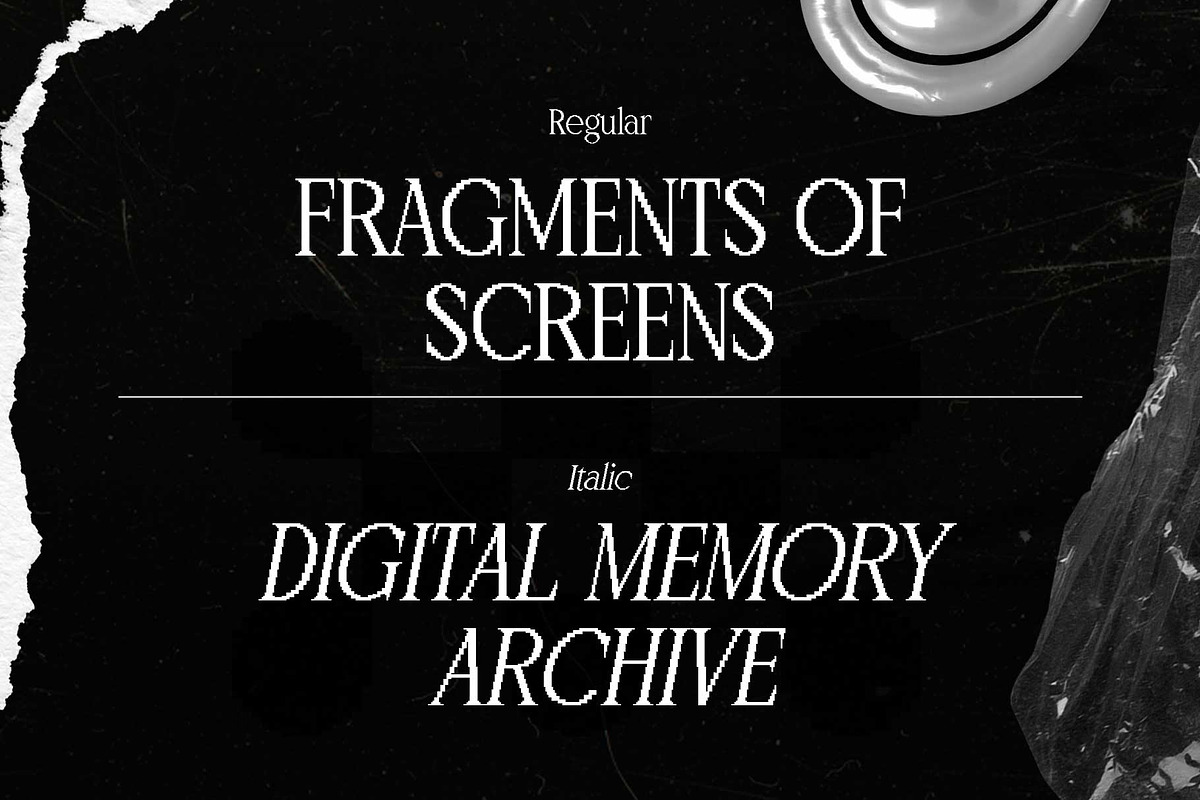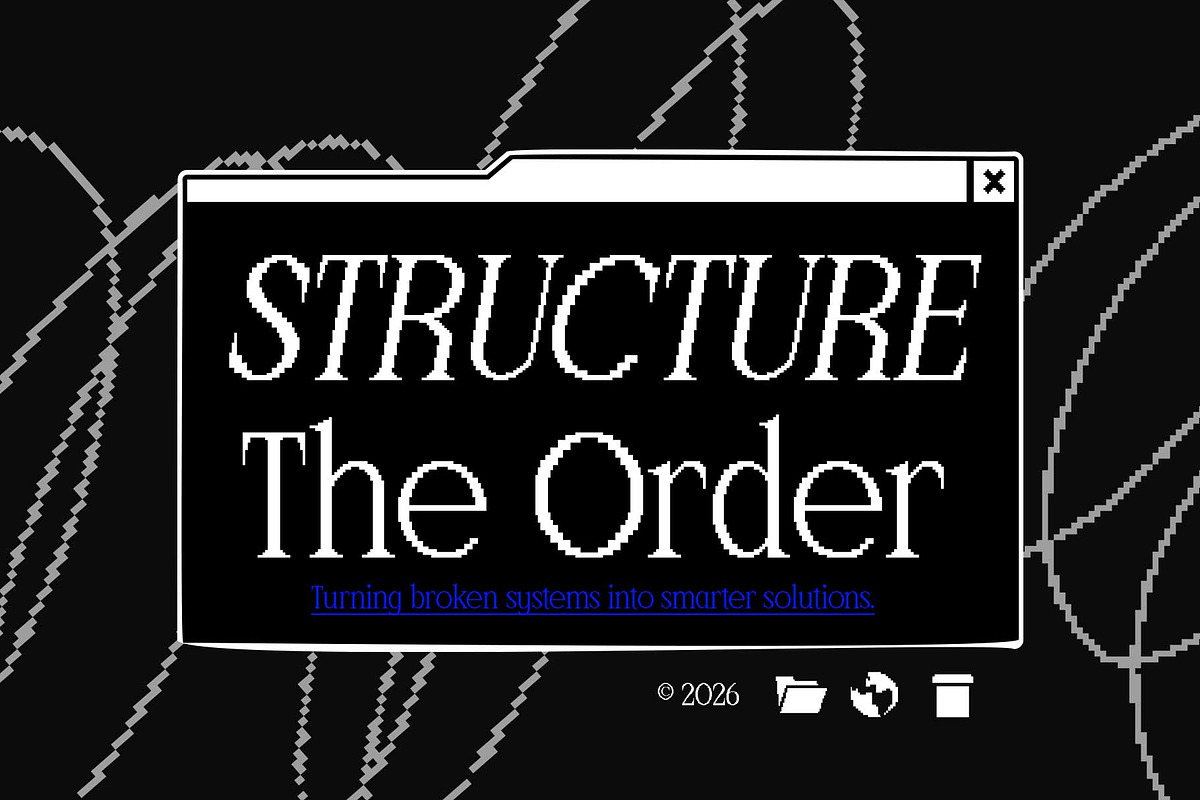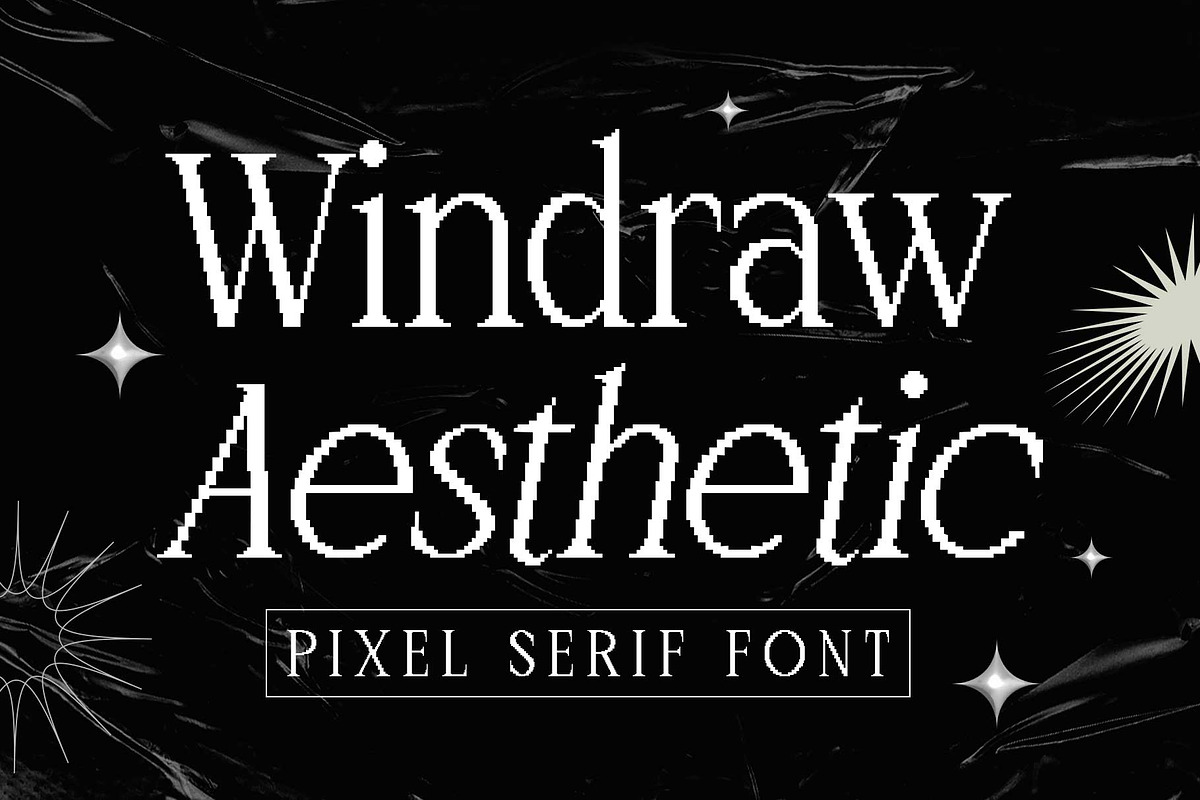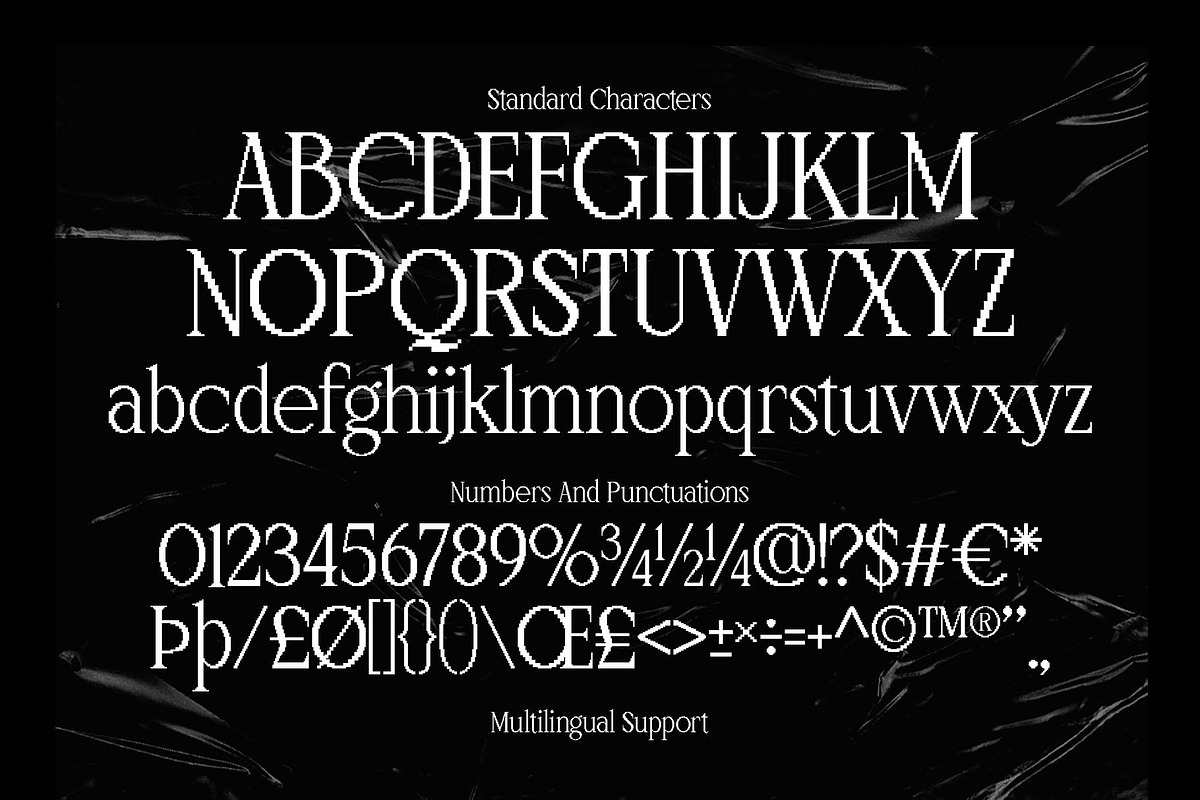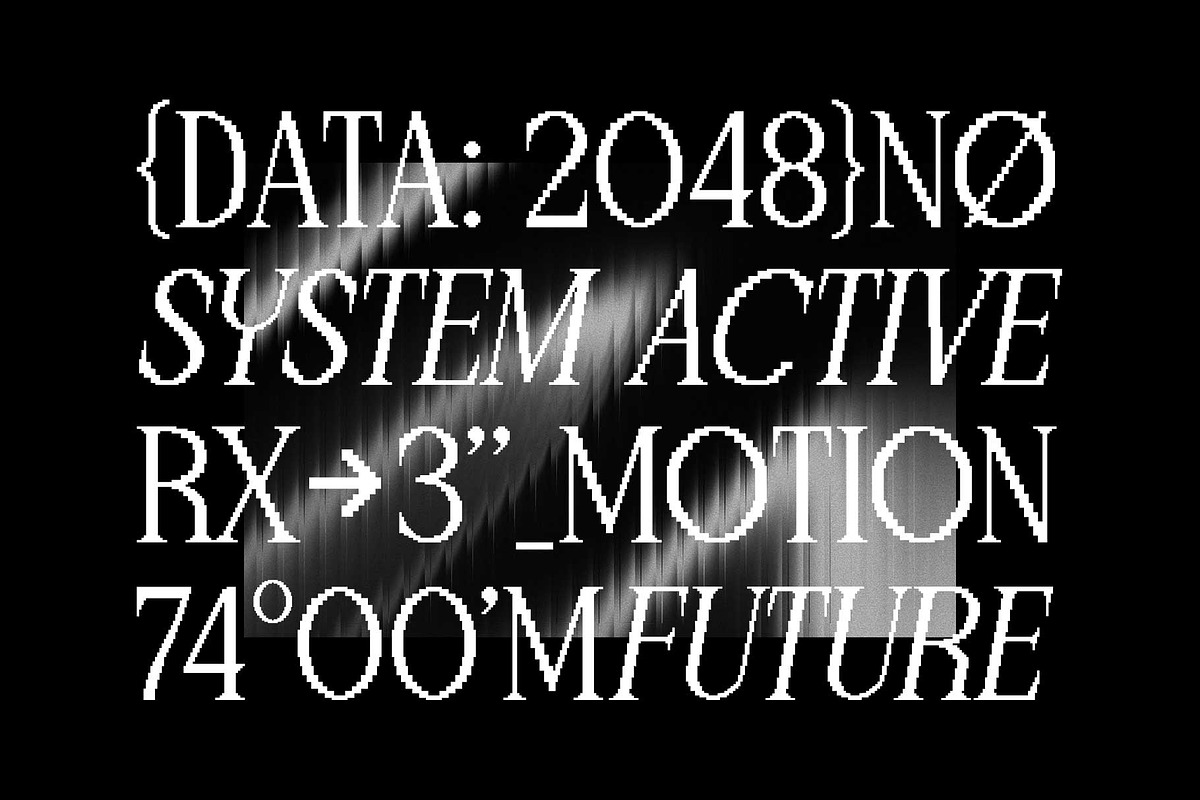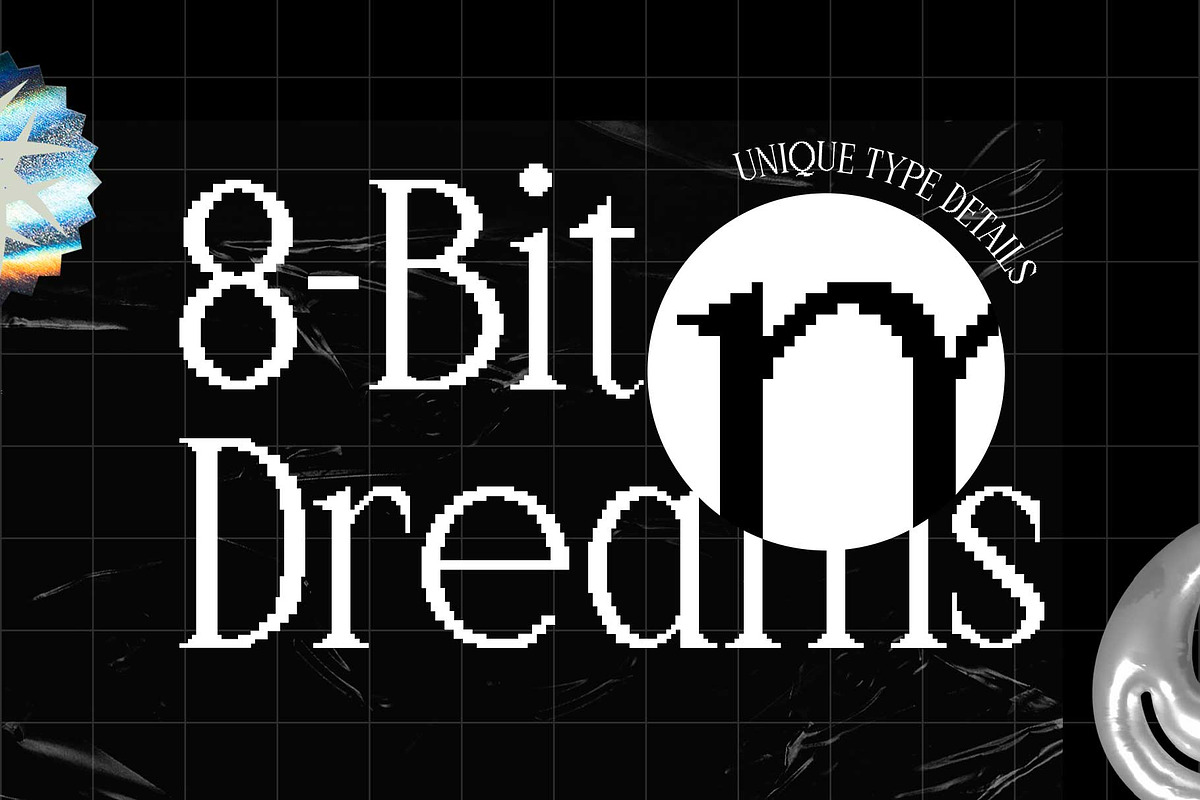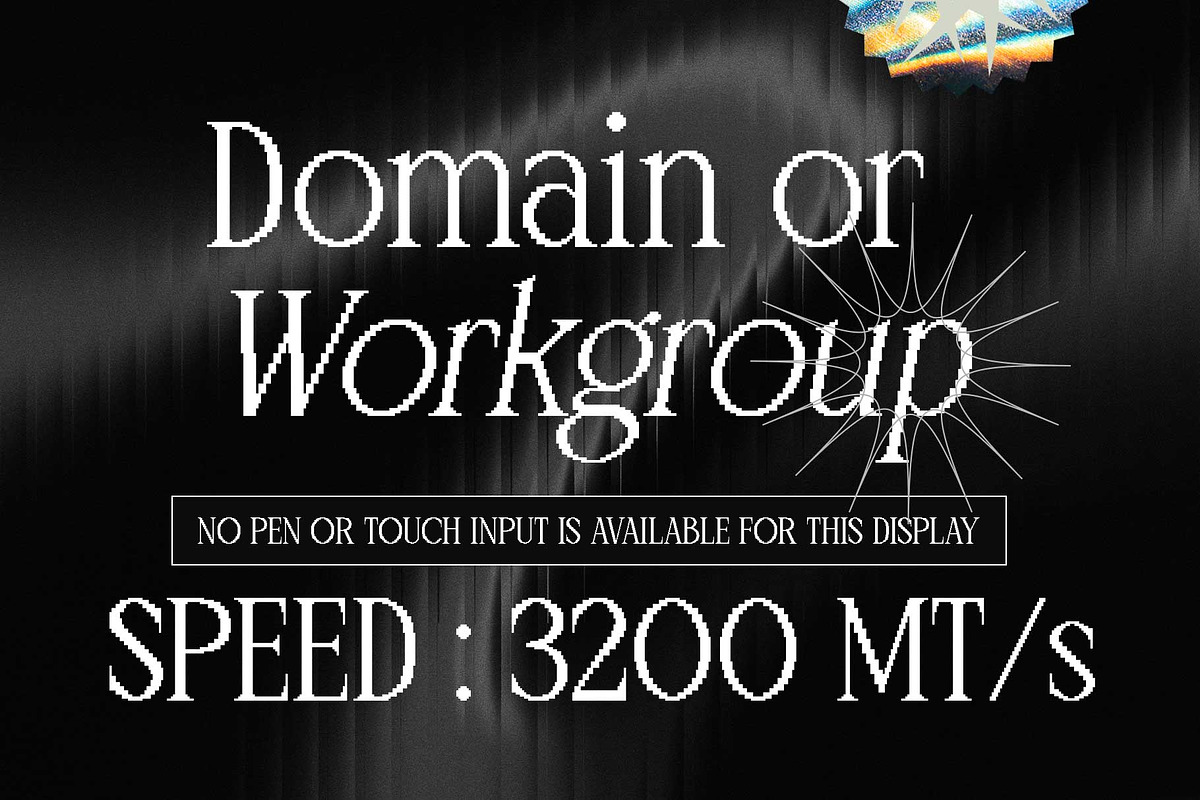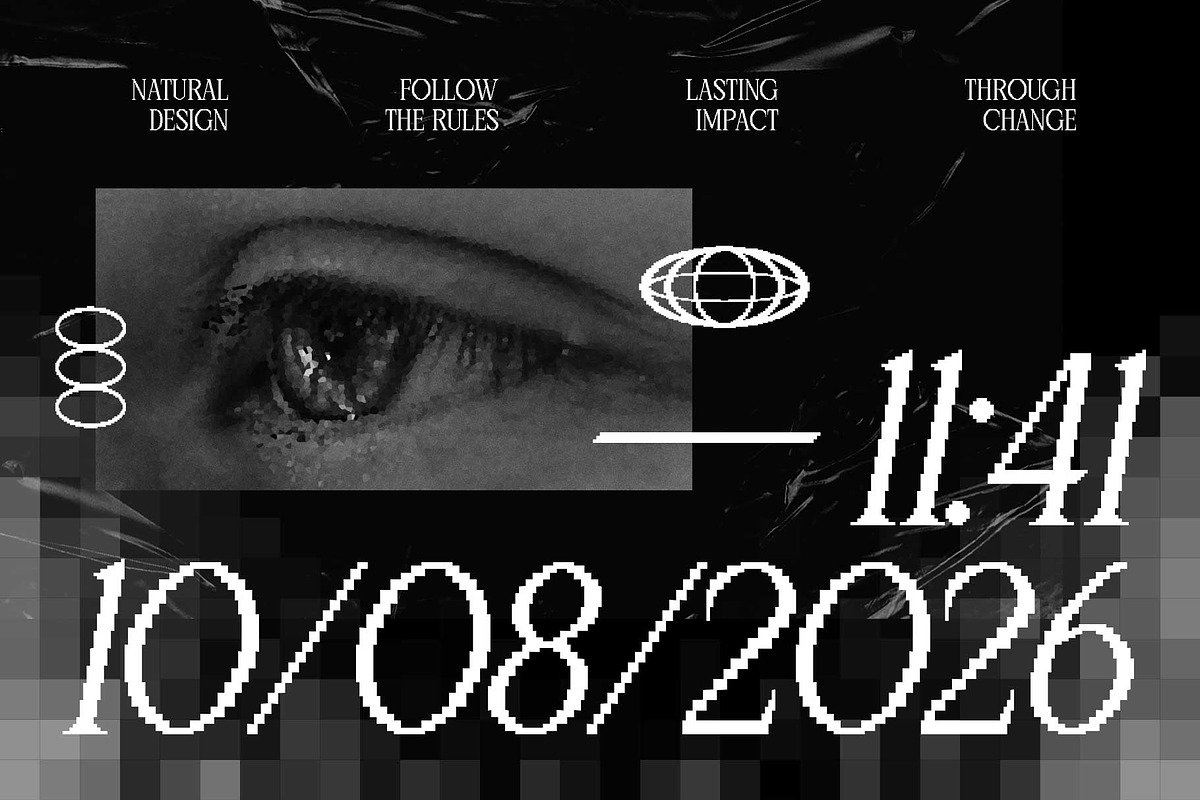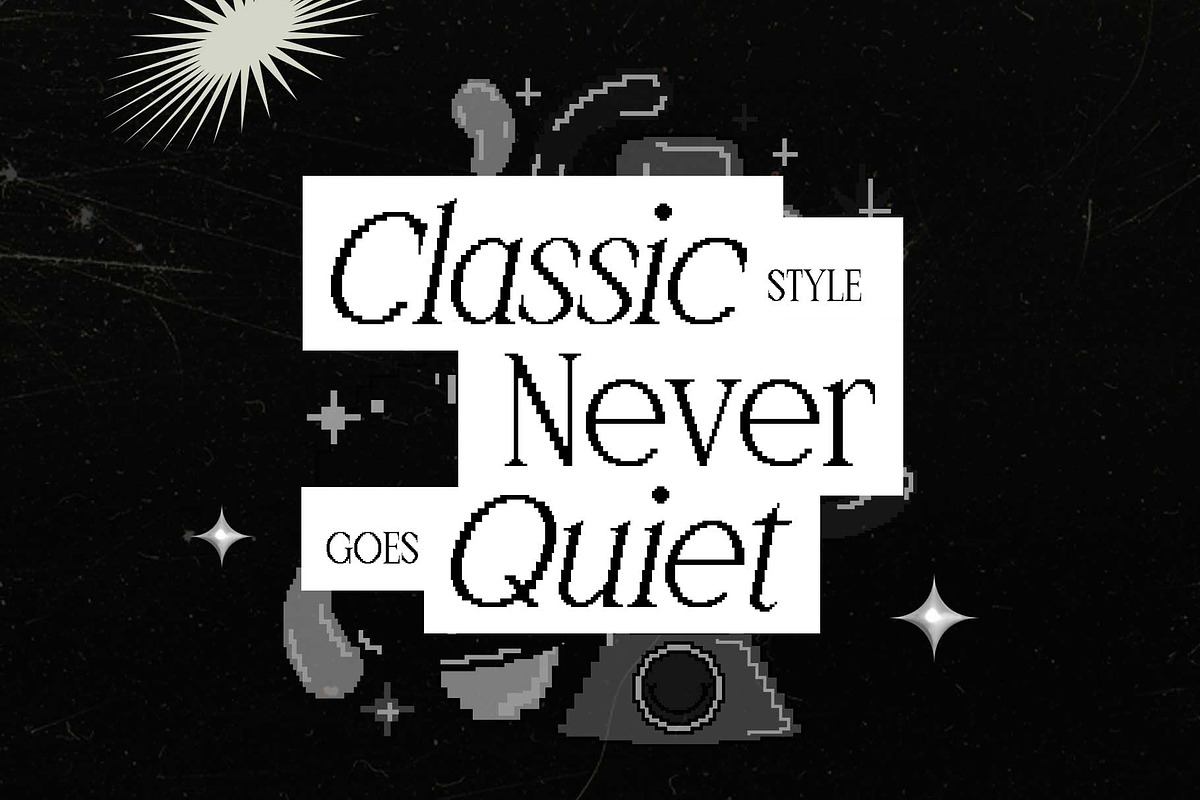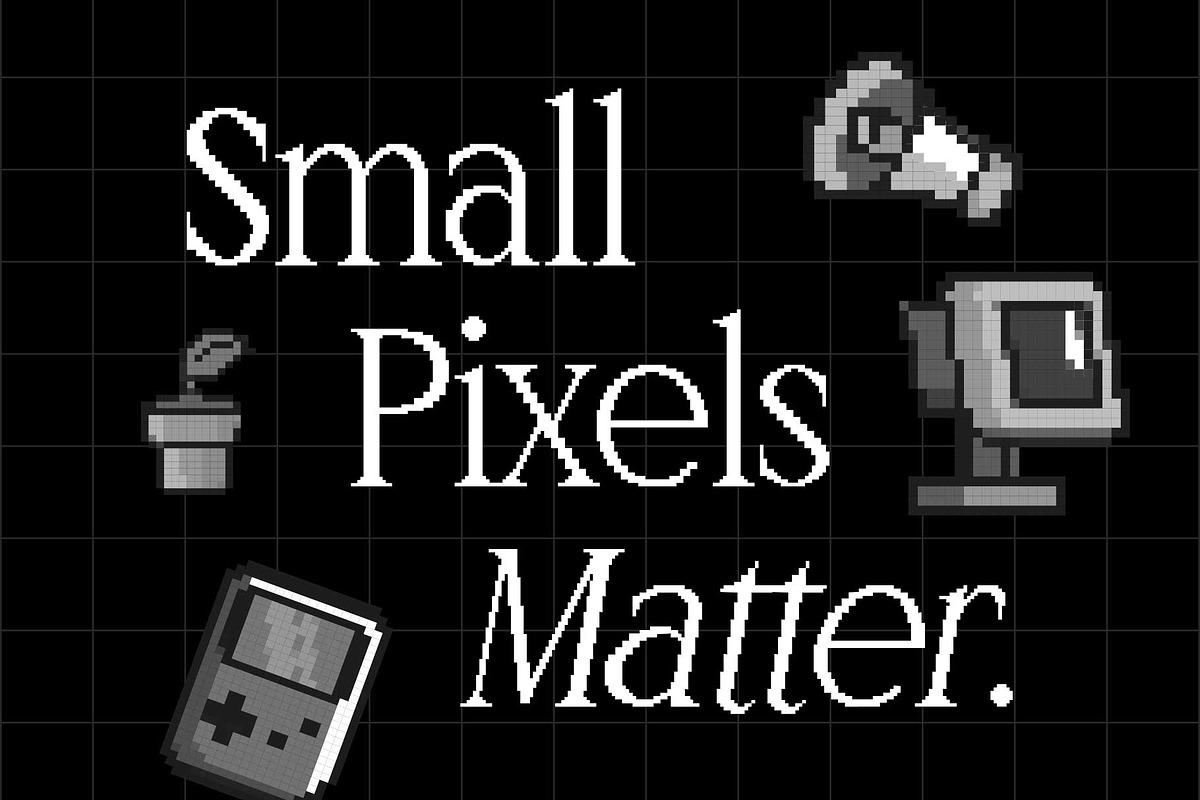
Windraw Aesthetic - Pixel Serif
Windraw is a pixel serif with a refined, high-contrast character. It takes the elegant proportions of classic serif typography and translates them into a pixel-based form, creating an unusual tension between elegance and technology, nostalgia and futurism. Thin strokes, sharp serifs, and visible pixel edges give it a distinctive digital character.
Unlike chunky pixel fonts that lean heavily into an arcade or retro-game aesthetic, Windraw keeps a more elegant and editorial feel. What would a sophisticated serif look like if it were drawn on a pixel grid? The answer is a typeface that feels nostalgic without being overly retro, and futuristic without losing its typographic character.
With Regular and Italic styles, Windraw works beautifully for posters, editorial layouts, fashion graphics, album artwork, branding, technology, sci-fi, gaming, and experimental design. It’s made for designers who want something familiar enough to use, but unusual enough to make people stop and look twice.
Lowercase
Symbols & punctuation
Stylistic alternates